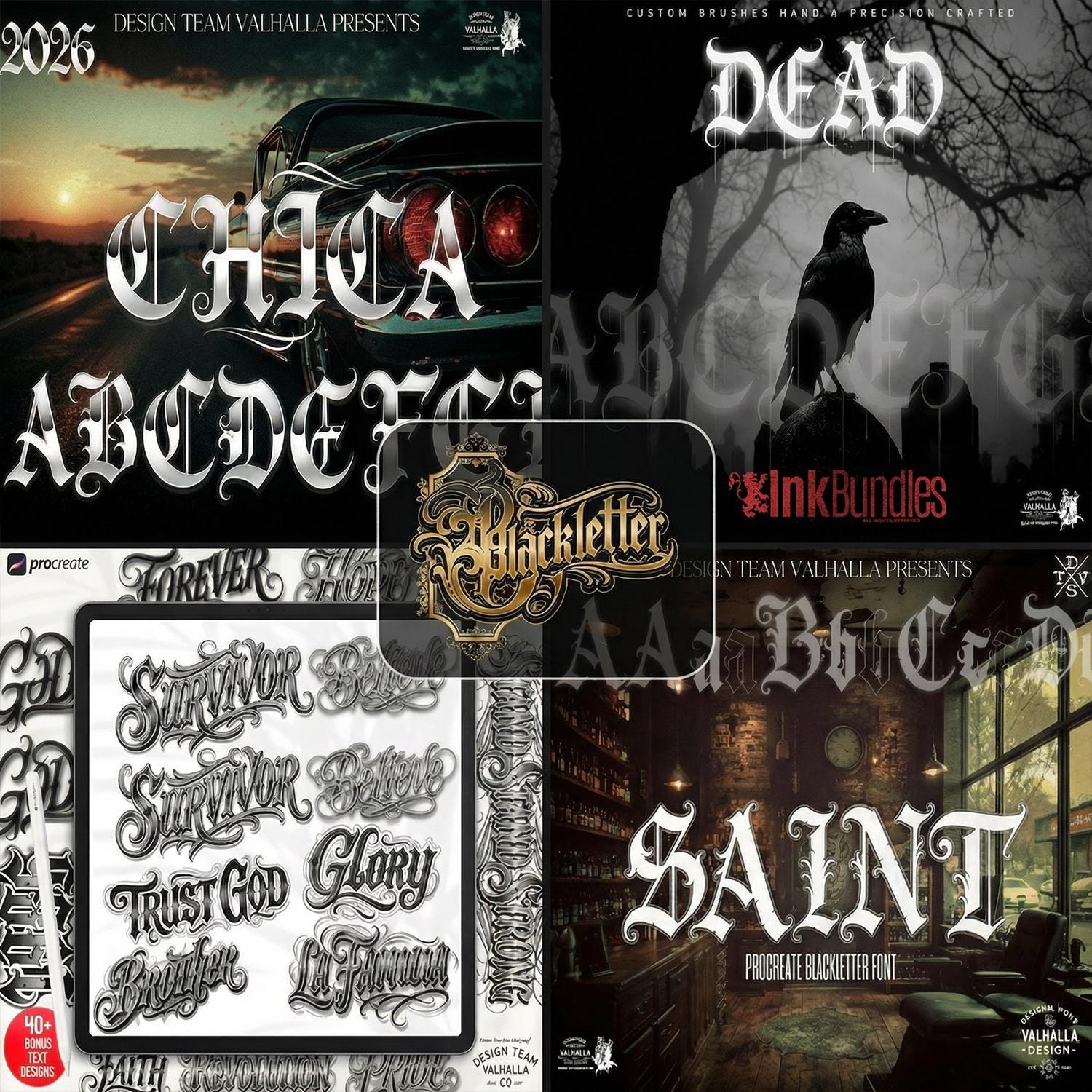
Blackletter Procreate Stamp Brushes | Gothic Tattoo Lettering Design Kit
Blacklettering for Procreate Vol.1 by @onI.Letterz - Design Team Valhalla, Sweden
The Ultimate Blackletter Tattoo Lettering Design Kit Master the art of classic tattoo typography with this comprehensive Blackletter stamp brush and PNG design kit. Carefully curated to capture the bold, intricate aesthetic of Gothic and Old English calligraphy, this typographic reference theme is an absolute essential for any digital creator's library. Whether you are a professional tattoo artist mapping out a complex chest piece or an enthusiast looking for intricate, text-based coloring projects, these assets deliver flawless, razor-sharp lettering every single time.
Perfect For Multiple Creative Uses: This bundle perfectly bridges the gap between professional shop typography and personal creative hobbies. Tattoo artists can utilize these traditional Blackletter stencils to quickly spell out custom names, build script flash sheets, or test script placements on digital client photographs. Meanwhile, digital illustrators, merchandise designers, and craft enthusiasts can use the universal PNG files to design gothic streetwear apparel, create print-on-demand goods, or print out relaxing, adult-friendly typographic coloring pages.
•46 blackletter / chicano inspired text designs ( 46 stamps )
•Saint ( 86 stamps )
•Victory (39 stamps )
•Chica ( 44 stamps )
•Dead ( 28 stamps )
•Dominion ( 58 stamps )
•Metal ( 28 stamps ) + png,svg & .otf font
•Poltava ( 55 stamps )
•Cathedral ( 65 stamps )
+ capital letter ideas Chicano / Blackletter
+Brushes & creative kit ( 75 stamps & brushes )
Carefully crafted Blackletters made for Procreate to ensure the highest attention to detail. The complete alphabet—both uppercase and lowercase—is designed for effortless combination, making it easy for you to fuse letters seamlessly into your own unique pieces.
🔱 All that are looking for custom hand drawn letters ( not fonts downloaded from free font sites )